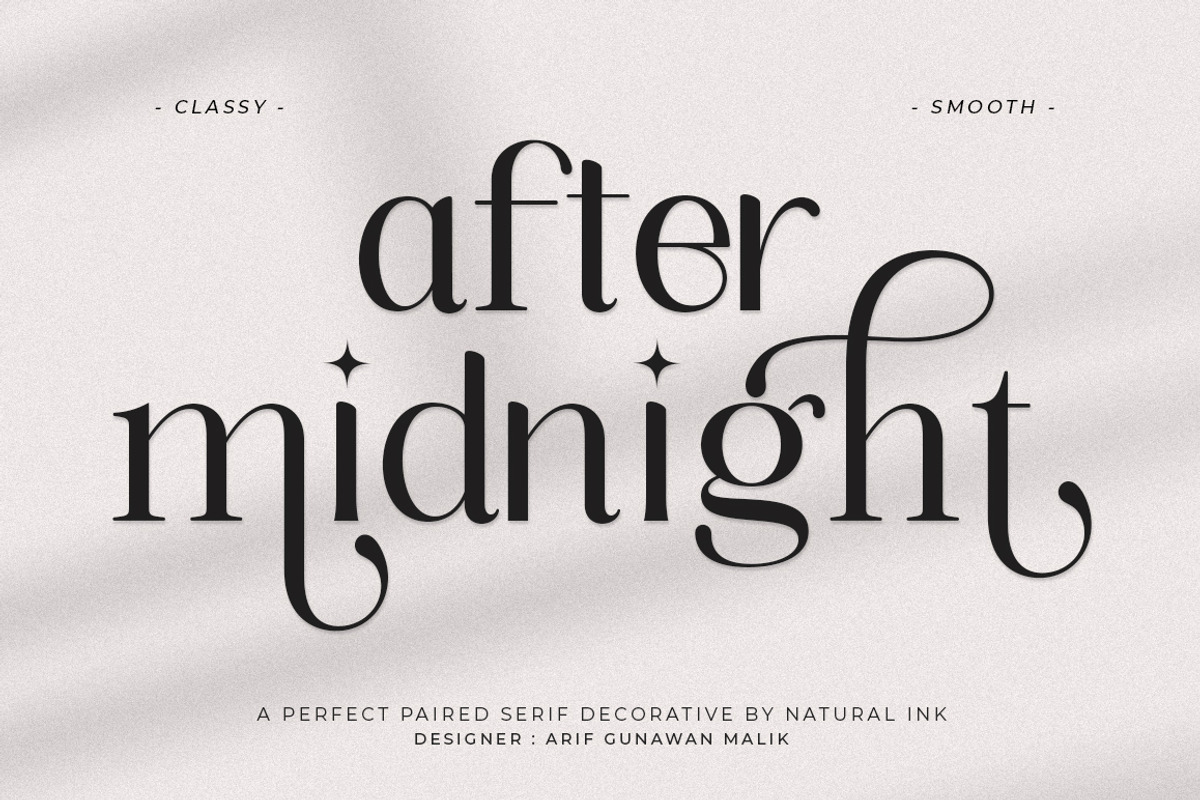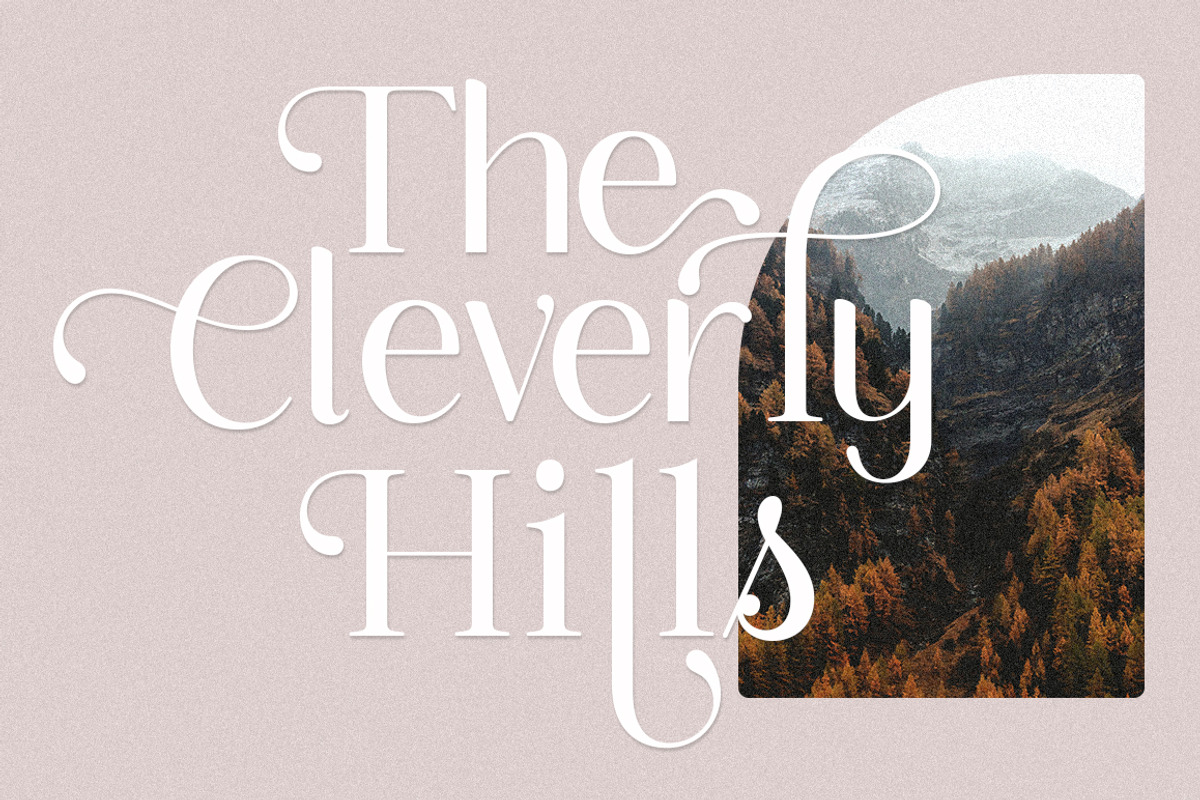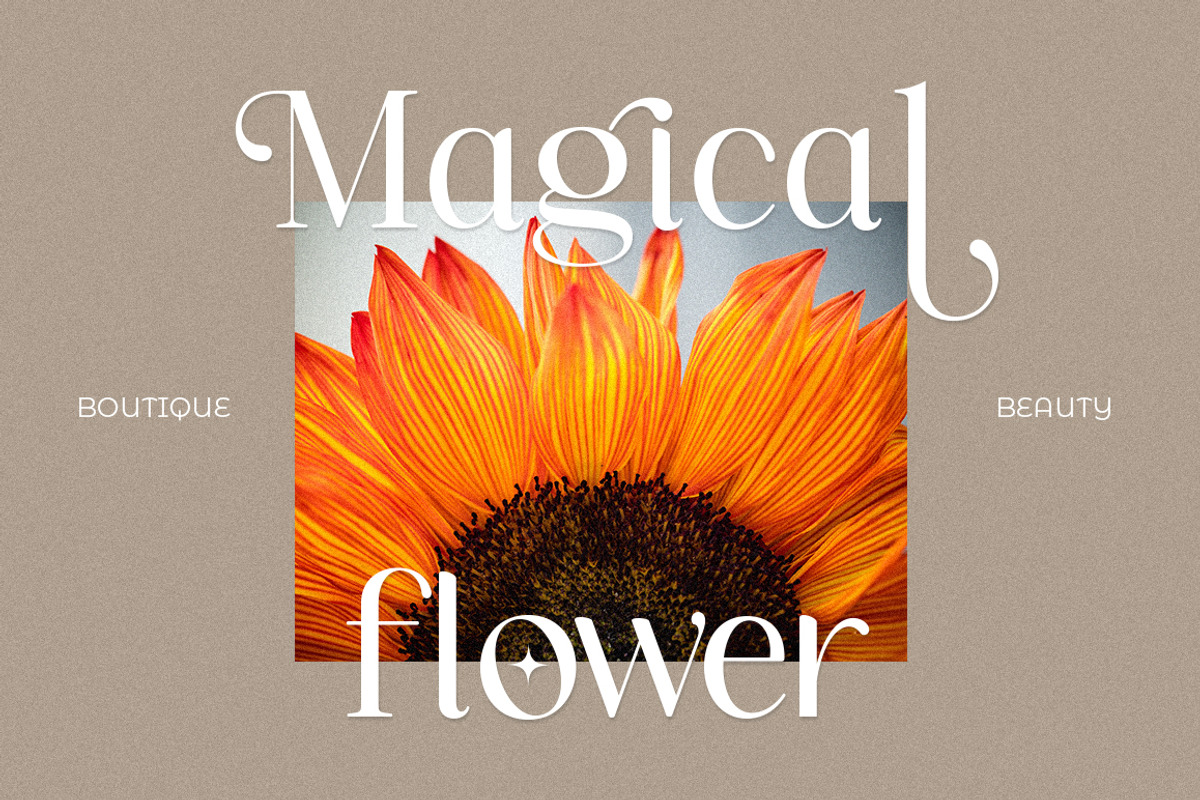
After Midnight
After Midnight - a serif look with simple, clean and visual elegance with smooth curves and beautiful ligatures, A very versatile font that works in both large and small sizes. This font is suitable for a wide variety of projects such as: headlines, logos, labels, branding projects, magazines, homeware designs, product packaging, mugs, quotes, posters, and more. It can also be more expressive and fun, thanks to the many alternatives and binders that combine harmoniously in this font and make it more interesting and versatile. Try to change alternatives, binders and you will get many options for your project which will make it Smooth & beautiful.